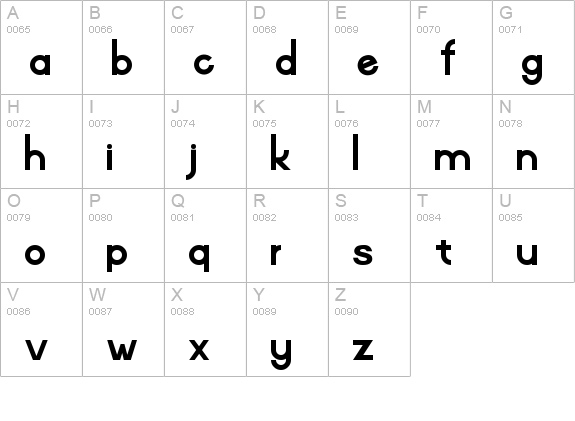
dvcc Font Details
Introducing DVCC Font, a captivating typeface that exudes elegance and sophistication. With its sleek and modern design, DVCC Font is perfect for a wide range of creative projects, from branding and logo design to advertising and editorial layouts. This font features a unique combination of clean lines and subtle curves, resulting in a harmonious balance that is visually pleasing to the eye. Each letter is meticulously crafted, showcasing the attention to detail and craftsmanship that went into creating this stunning typeface. One of the standout features of DVCC Font is that it is absolutely free. Yes, you read that right - this remarkable font is freely available to download at FontsMarket.com. Whether you are a professional designer or a hobbyist looking to add a touch of sophistication to your creative endeavors, DVCC Font is the perfect choice. With its wide range of weights and styles, DVCC Font offers versatility and flexibility for all your design needs. Whether you're looking for a bold and impactful headline or a refined and elegant body text, this font has got you covered. Its legibility and readability make it suitable for both print and digital projects, ensuring your message is conveyed effortlessly to your audience. So why wait? Enhance your designs with the timeless beauty of DVCC Font. Download it for free today at FontsMarket.com and unlock a world of creative possibilities.